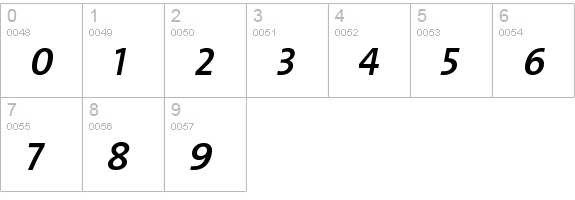
TheSans SemiBold Caps Italic Font Details
TheSans SemiBold Caps Italic is a sub-bold, structured, italic variant in the TheSans typeface family \xE2\x80\x94 well suited to sub-headlines and emphasised passages.
TheSans SemiBold Caps Italic font is a versatile and stylish typeface that exudes confidence and sophistication. Its bold and uppercase design commands attention, while the subtle italic slant adds a touch of elegance. With its clean lines and balanced proportions, TheSans SemiBold Caps Italic font is perfect for creating eye-catching headlines, logos, and branding materials. Whether used in print or on digital platforms, this font is sure to make a statement. One of the best features of TheSans SemiBold Caps Italic font is that it is freely available to download at FontsMarket.com. This means that designers, creatives, and typographers can easily access this high-quality font without any cost. With just a few clicks, anyone can enhance their projects with the professionalism and impact that this font brings. TheSans SemiBold Caps Italic font offers a wide range of characters, including punctuation, numerals, and special symbols, making it suitable for various languages and design purposes. Its smooth curves and precise detailing ensure legibility, even at smaller sizes. Whether you're designing a magazine layout, a website, or a promotional poster, TheSans SemiBold Caps Italic font will elevate your work to new heights. Its modern and versatile design, combined with its free availability, make it a must-have in any designer's toolkit.